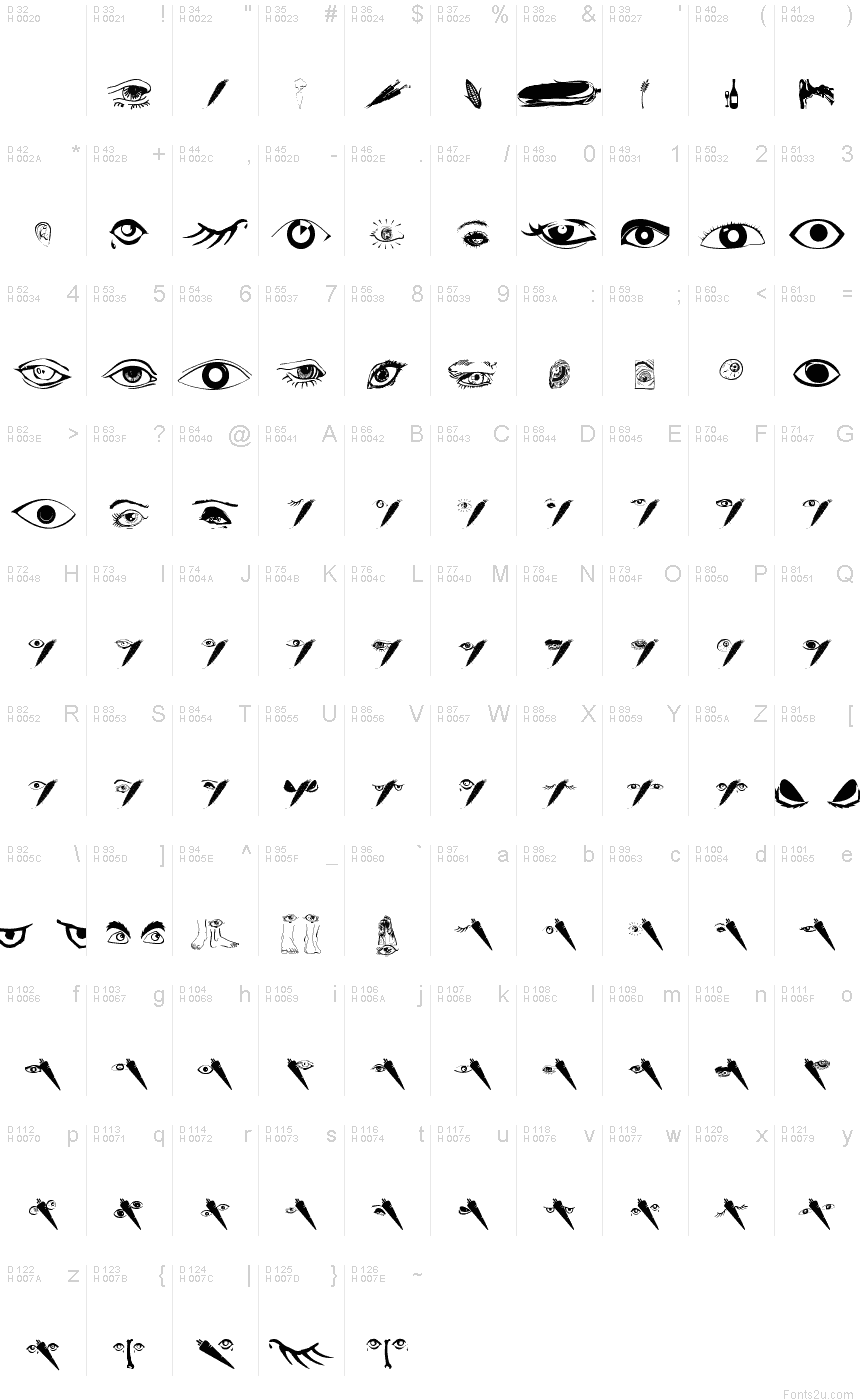
WysiwygBats by M Klein is a free illustrated dingbat font built around watchful eyes and sharply pointed writing tools. The drawings mix clean silhouettes with scratchy lashes, droplets, and hand-inked details, giving the set a tense, slightly surreal edge that recalls eccentric sketchbook marginalia.
Editorial design is its strongest setting, especially for magazine features, book covers, and poster graphics about observation, authorship, or visual secrecy. The symbols can become borders, dividers, or compact emblems. They also suit stationery and merchandise for writers, tattoo artists, or fans of offbeat anatomical illustration, where the eye-and-pen theme becomes part of the subject.